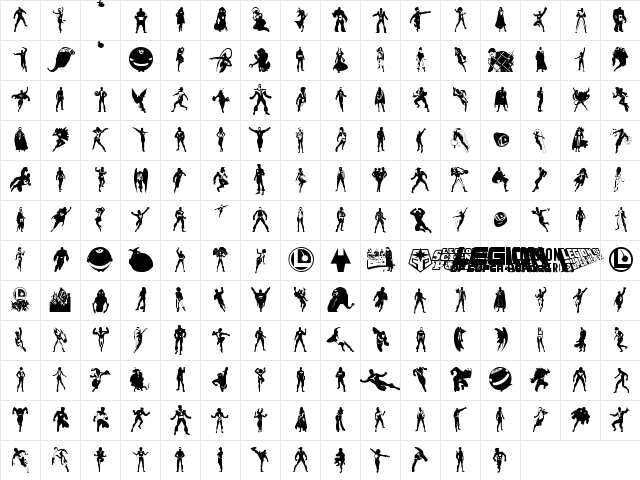
Legionnaires Regular Font Preview
Legionnaires Regular
Design Context for Legionnaires Typeface
Legionnaires is a composed and adaptable typeface that performs quietly and consistently across a wide range of design contexts.